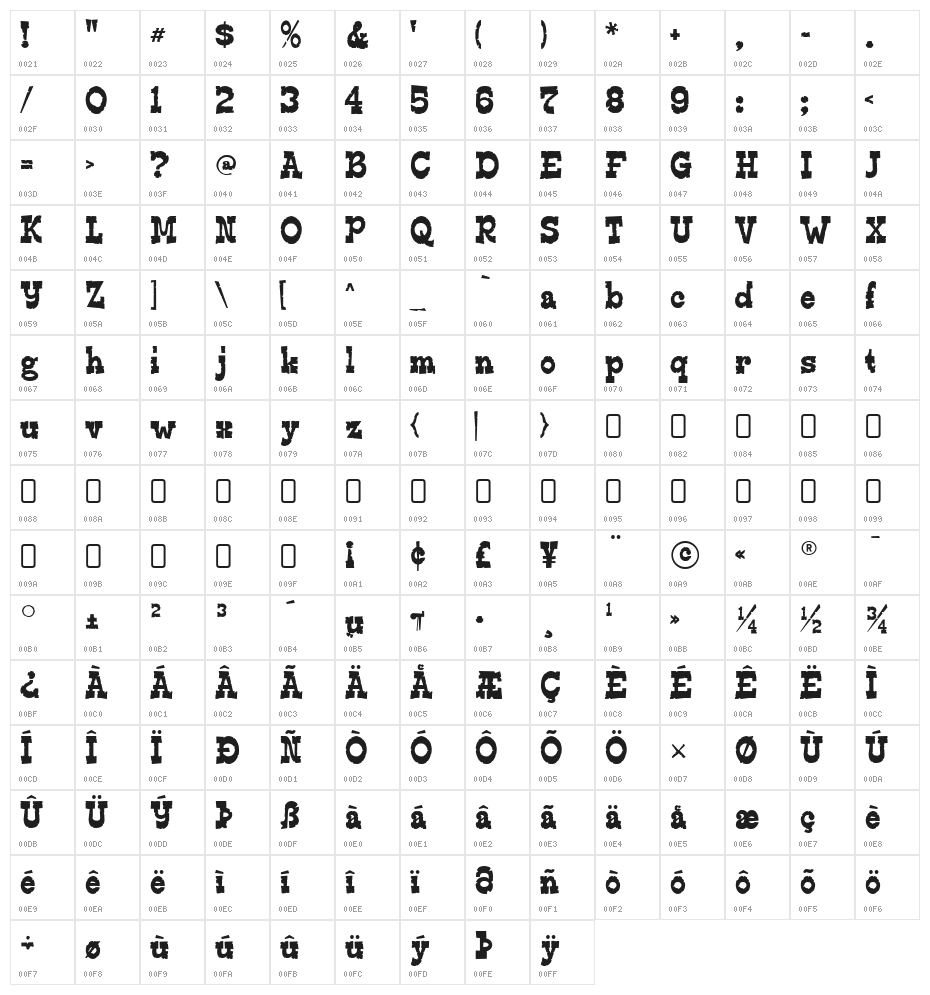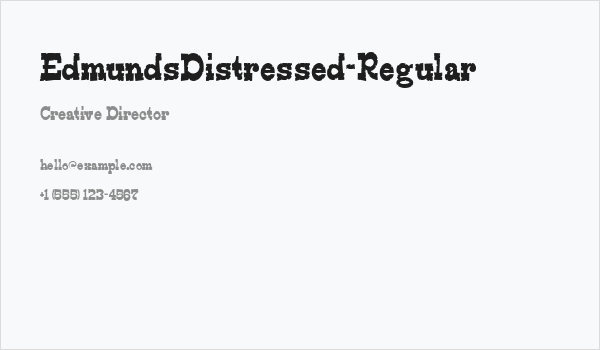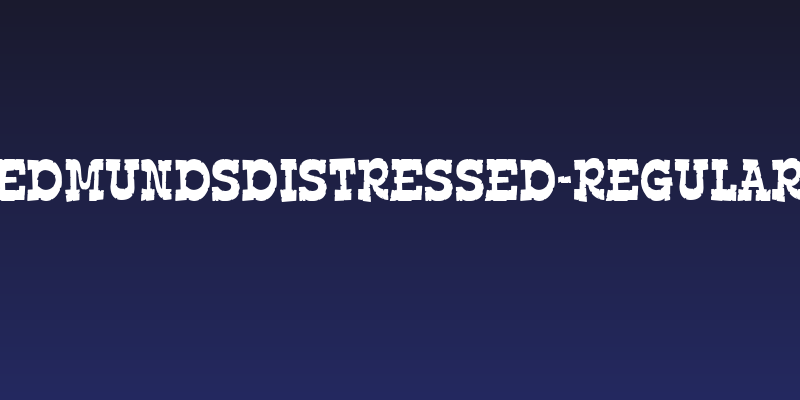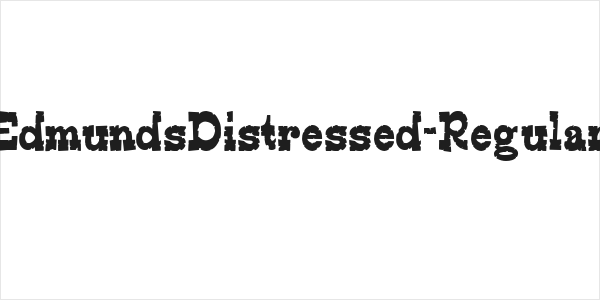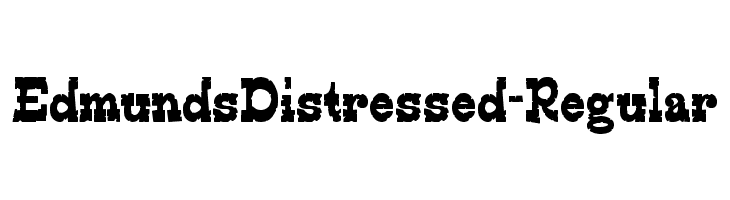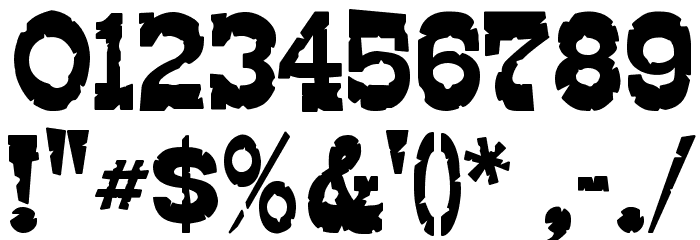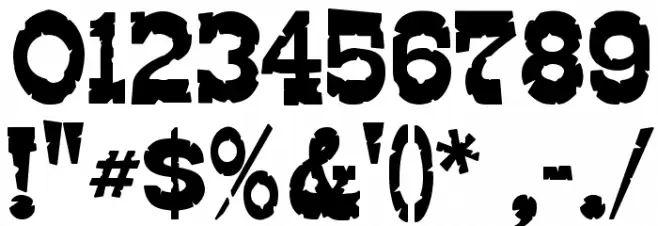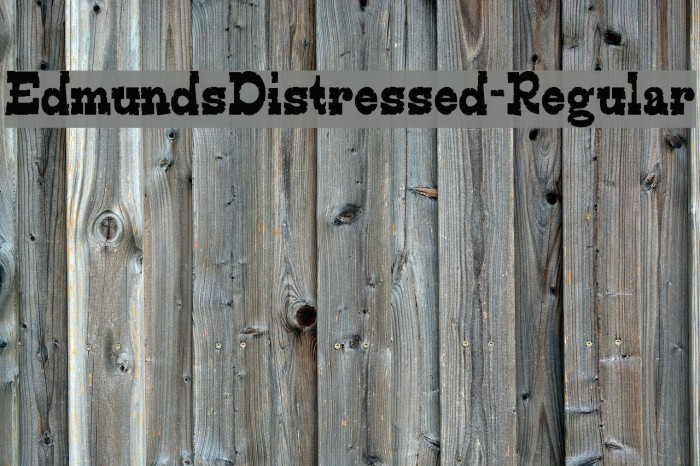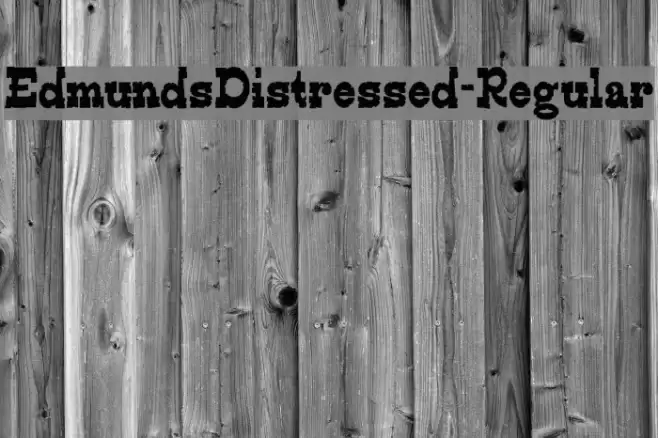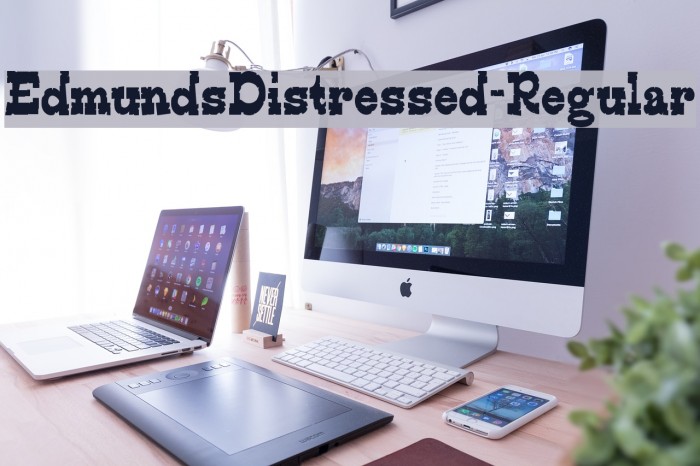
EdmundsDistressed-Regular Font
EdmundsDistressed-Regular Description
This font features a distressed, rugged appearance with a bold and impactful style. The characters are heavily textured, giving them a worn and vintage look. The uppercase and lowercase letters maintain a consistent weight, with irregular edges that add to the distressed effect. Numbers and special characters follow the same design, ensuring a cohesive appearance across all glyphs. The font's unique style makes it stand out, perfect for projects that require a bold, eye-catching typeface with a vintage or grunge aesthetic.
| Overall Style | Vintage |
| Proposed Projects | Ideal for posters, album covers, branding for vintage-themed products, or any design needing a bold, distressed look. |